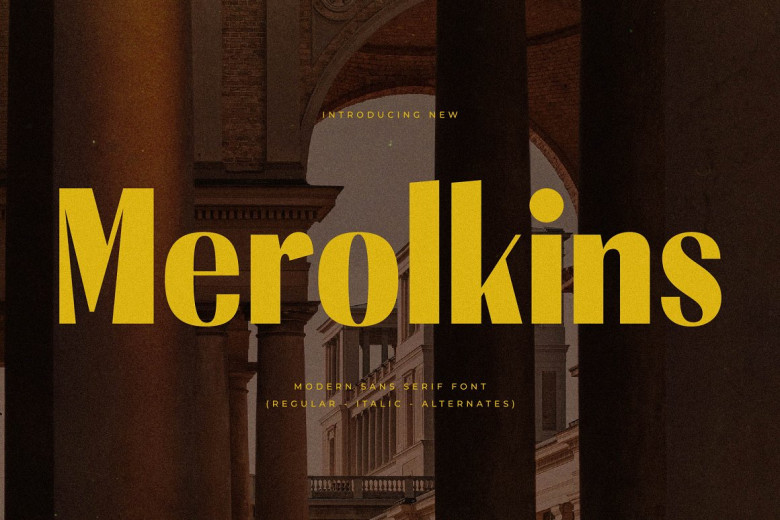
Merolkins Font
Merolkins offers an elegant and refined appearance. A non-serif font, Florania features balanced proportions without being too thin or thick; making this font ideal for luxury logo designs, book titles, clothing labels, magazine articles, lettering projects and quotes.
Merolkins Sans Serif Font